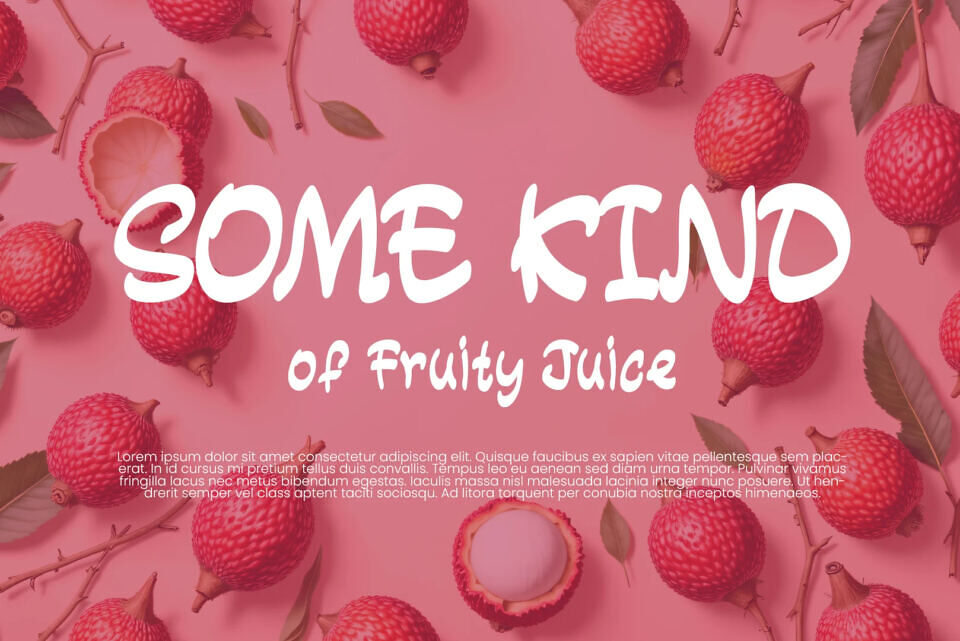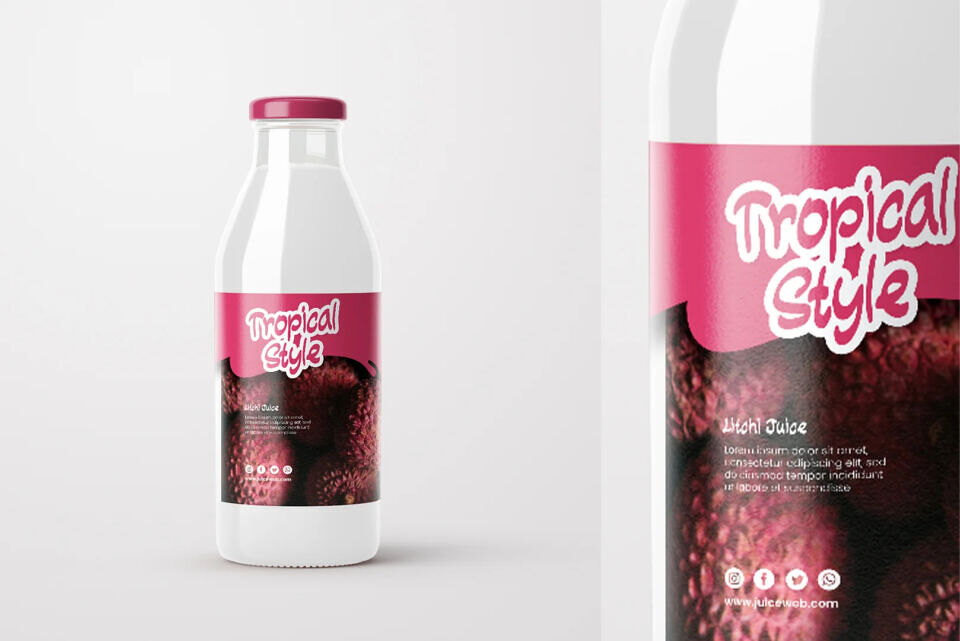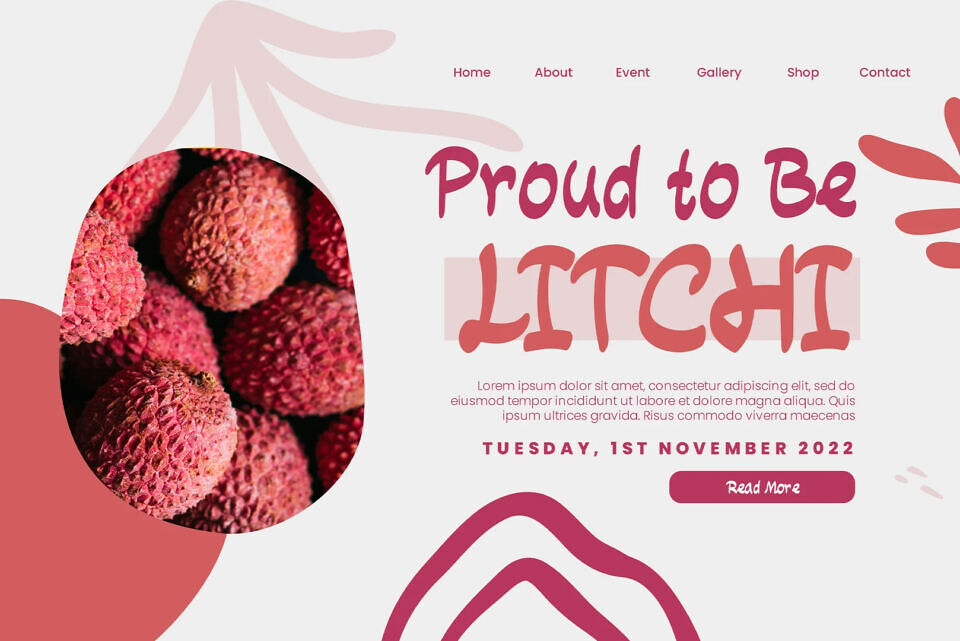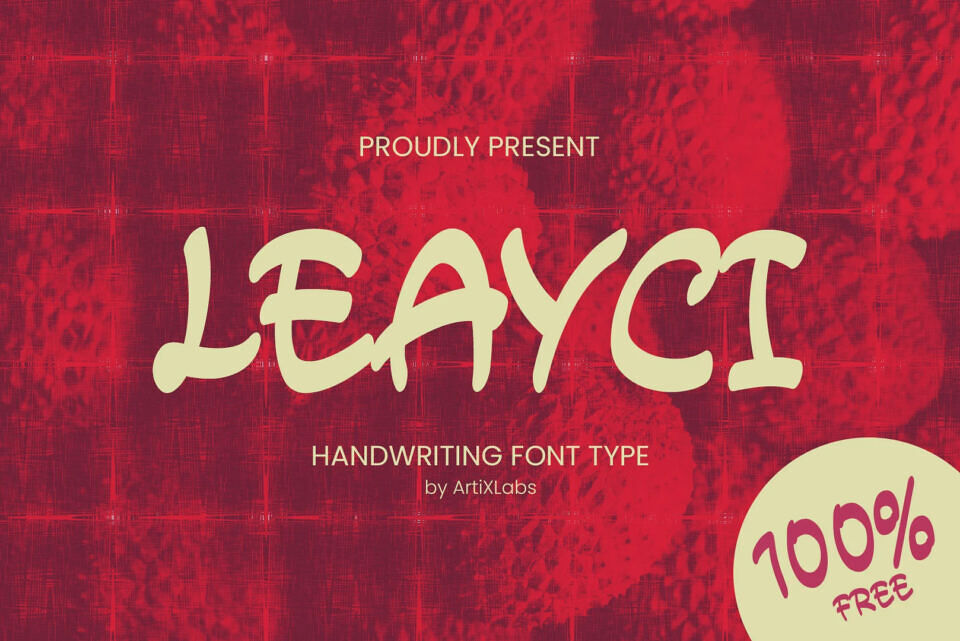
Leayci Font
Leayci is a cute and fun display font designed for playful creativity. Ideal for children’s projects, birthday invites, stickers, t-shirt prints, or any cheerful design that needs a touch of personality.